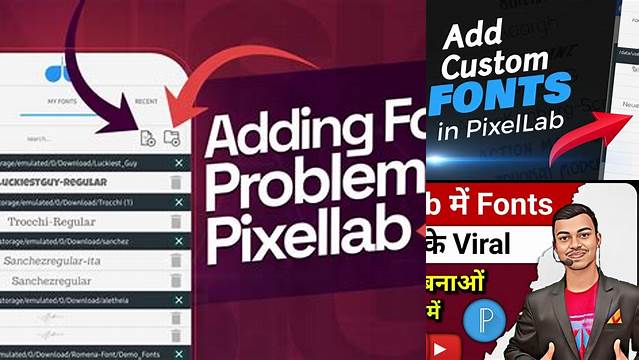
Add Fonts To PixelLab: A Simple Guide
Hey guys! Ever felt like your PixelLab creations are missing that extra oomph? One of the easiest ways to inject personality and flair into your designs is by using custom fonts. PixelLab, the awesome text editing app for Android, comes with a decent selection of fonts, but let's be honest, sometimes you need something a little more…you. This is where adding your own fonts comes in handy. In this comprehensive guide, we'll walk you through the simple steps of adding fonts to PixelLab, so you can take your text designs to the next level.
Why Add Custom Fonts to PixelLab?
Before we dive into the how, let's quickly touch on the why. Why bother adding custom fonts when PixelLab already has some built-in options? Well, think of it this way: fonts are like the voice of your text. Just like different voices convey different emotions and tones, different fonts can evoke different feelings and styles. A playful, handwritten font might be perfect for a fun birthday card, while a bold, sans-serif font might be more suitable for a professional business graphic. The ability to add custom fonts to PixelLab opens up a whole new world of creative possibilities. You can choose fonts that perfectly match your brand, your personal style, or the specific message you're trying to convey. Plus, it's a great way to stand out from the crowd and make your designs truly unique. Imagine you are creating a logo for a new coffee shop. A quirky, hand-lettered font might give it a cozy, artisanal feel, while a sleek, modern font could suggest a more contemporary vibe. The right font can make all the difference in how your design is perceived.
Moreover, adding custom fonts allows you to overcome the limitations of the default font library. While PixelLab's built-in fonts are useful, they might not always have the specific character or style you are looking for. By importing fonts from external sources, you can access a vast and ever-growing collection of typefaces, from elegant scripts to futuristic sans-serifs. This flexibility is especially valuable for designers who work on a variety of projects, each with its own unique aesthetic requirements. For example, if you're designing a poster for a vintage-themed event, you might want to use a classic serif font that evokes the charm of the past. Or, if you're creating social media graphics for a tech startup, a clean, minimalist font might be a better fit. Ultimately, adding custom fonts gives you the freedom to express your creativity without being constrained by the app's default options.